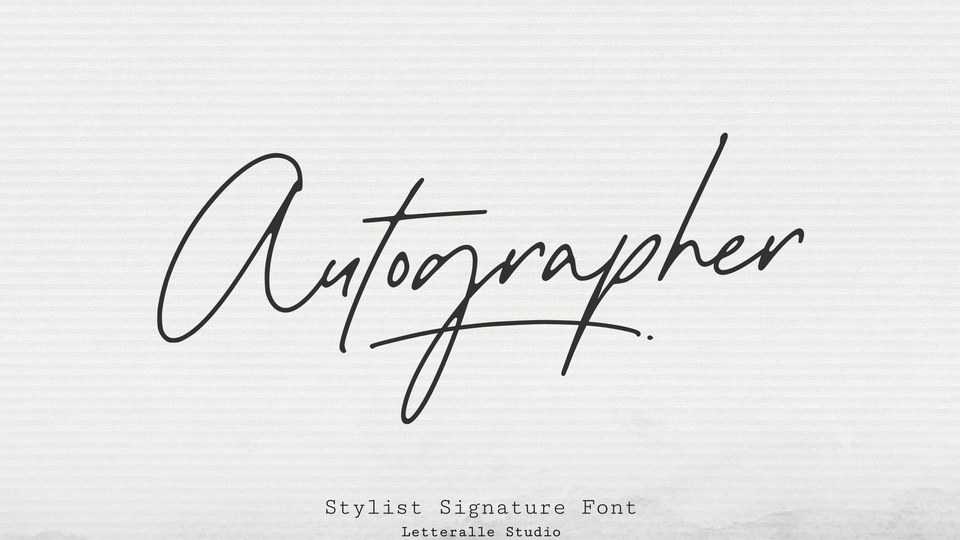
Download Autographer font, a wonderful signature typeface, an eye-catching, sexy, fashionable, and chill handwritten script. Autographer is very valuable to additional you handwritten and signature font.
Designer: Letteralle Studio